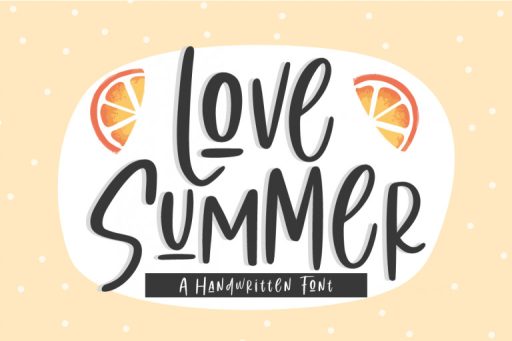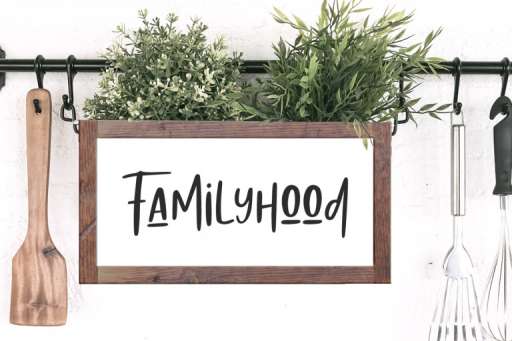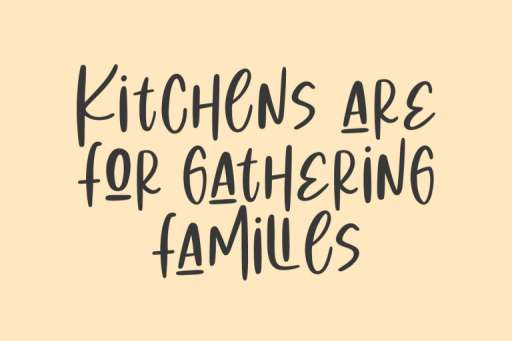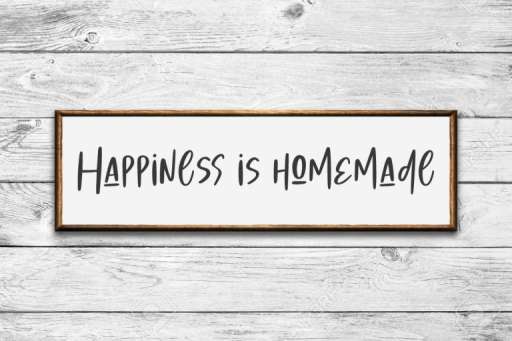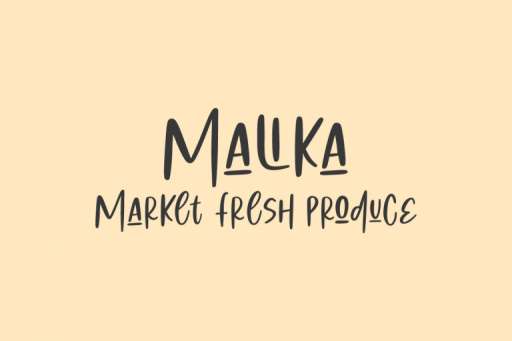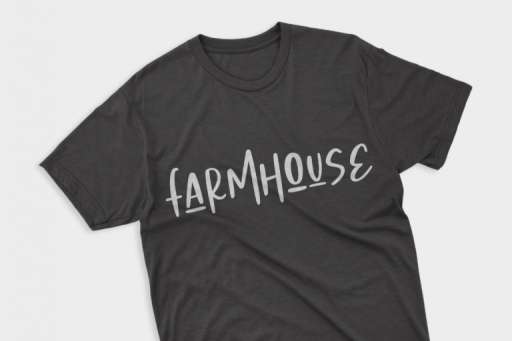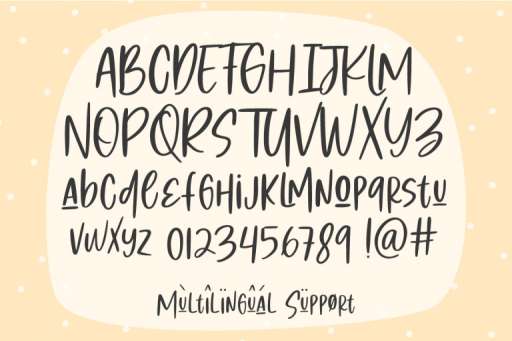
Love Summer Font - Handwriting Font From Jimtype Studio
Love Summer Regular
Love Summer – Friendly Handwritten Font
Love Summer is a playful handwritten font, this font perfect for branding, packaging, casual, kids design, playful design, fun design, website, logos, apparel, and more!
Love Summer Features :
• Multilingual